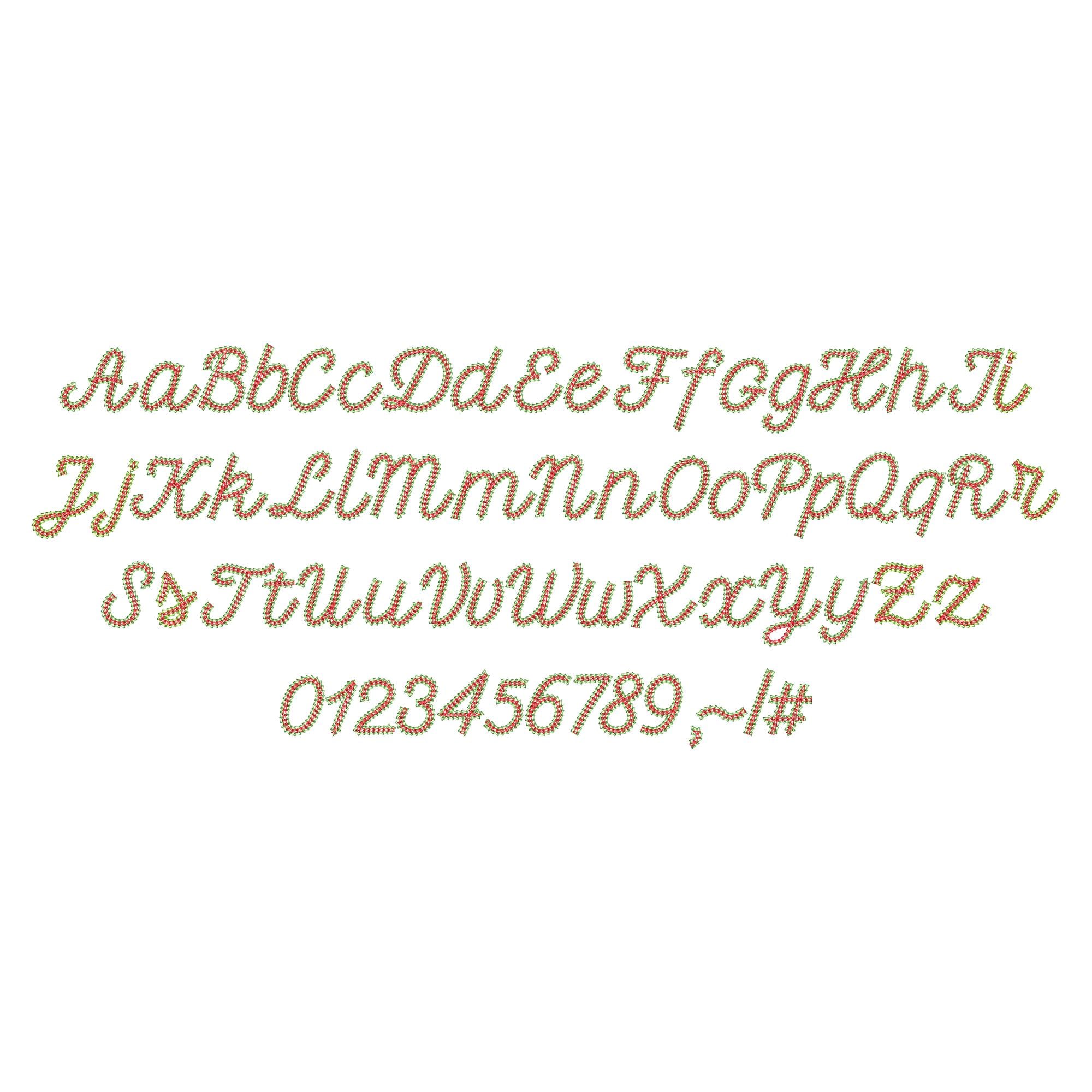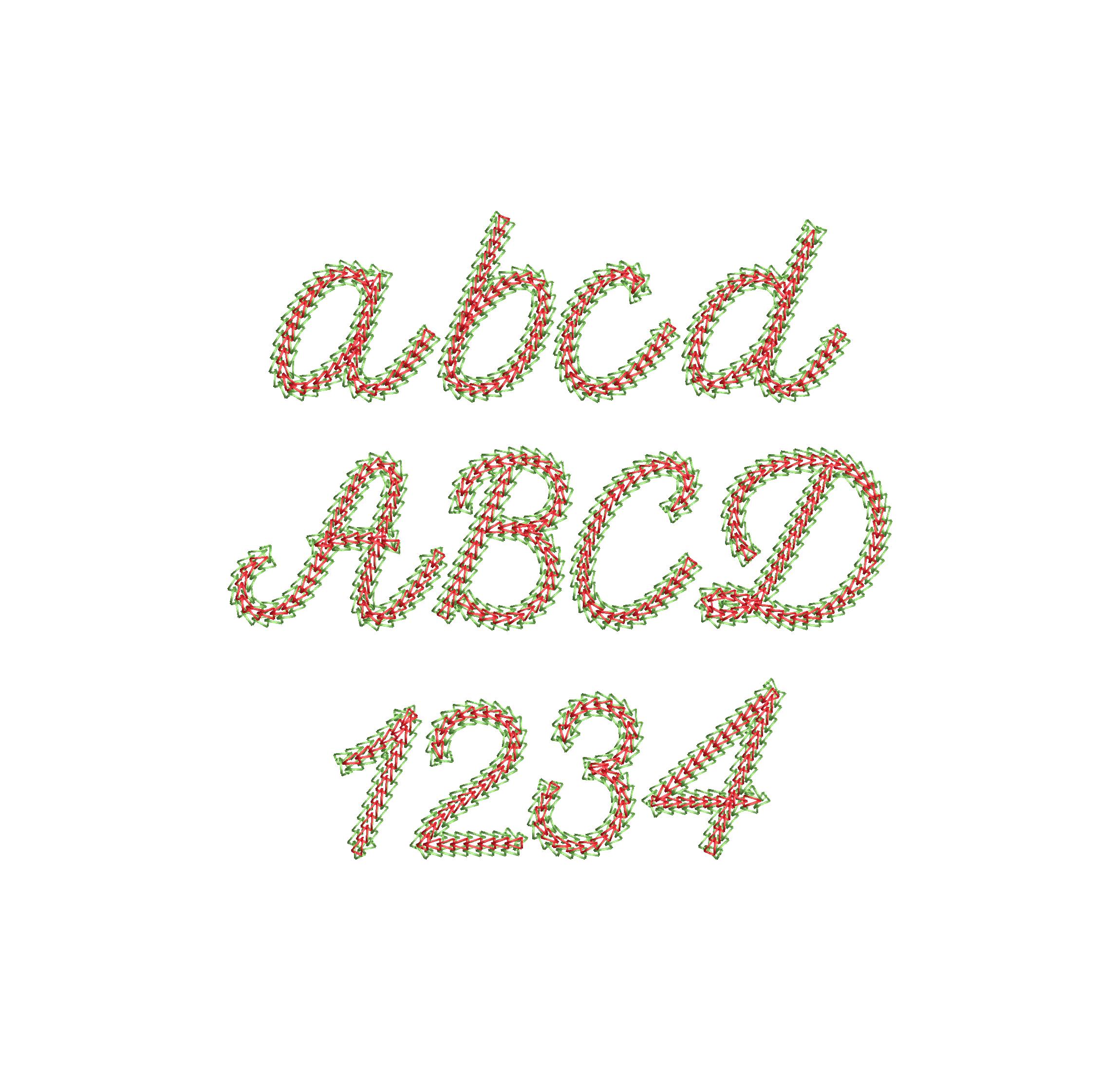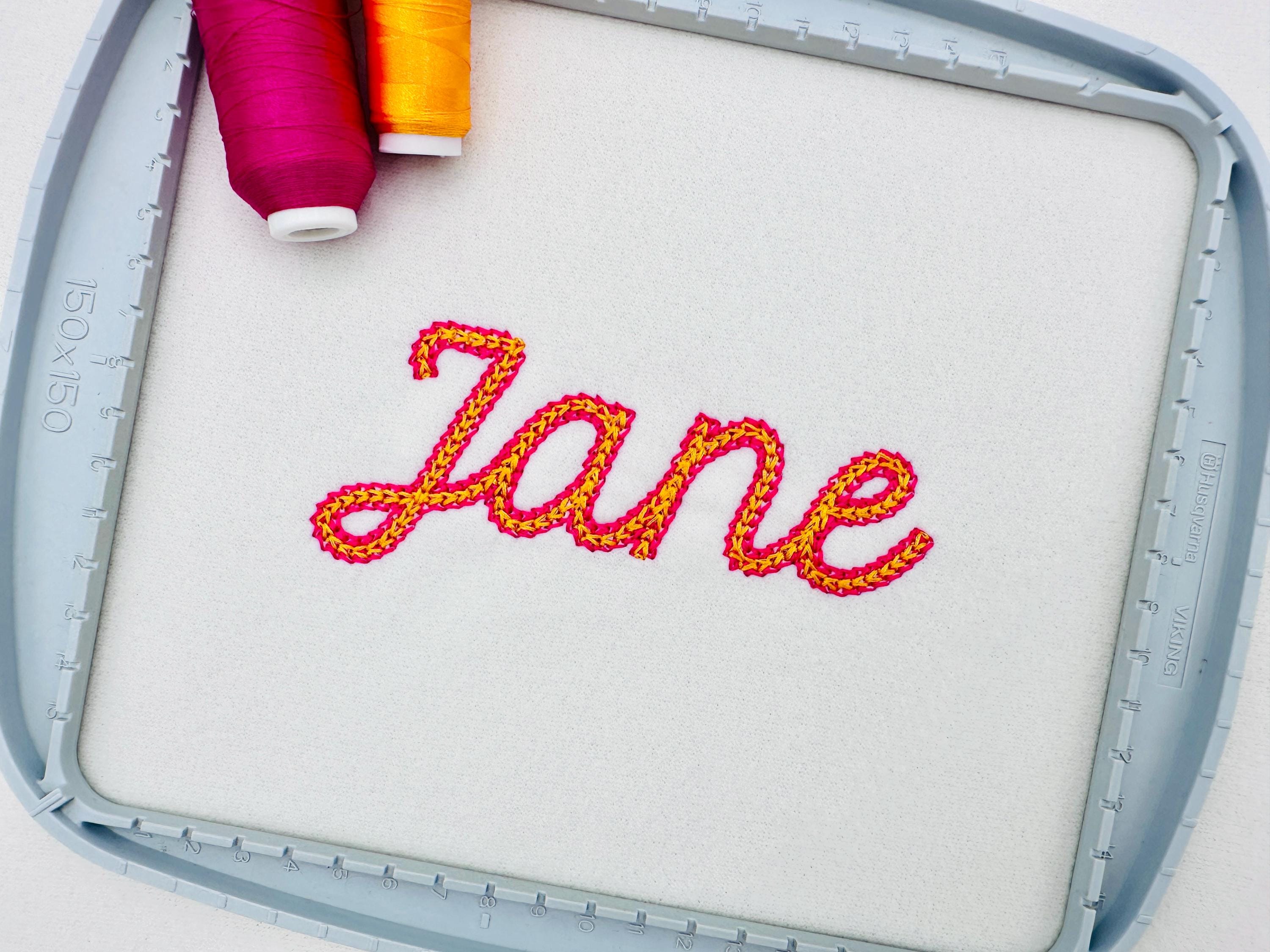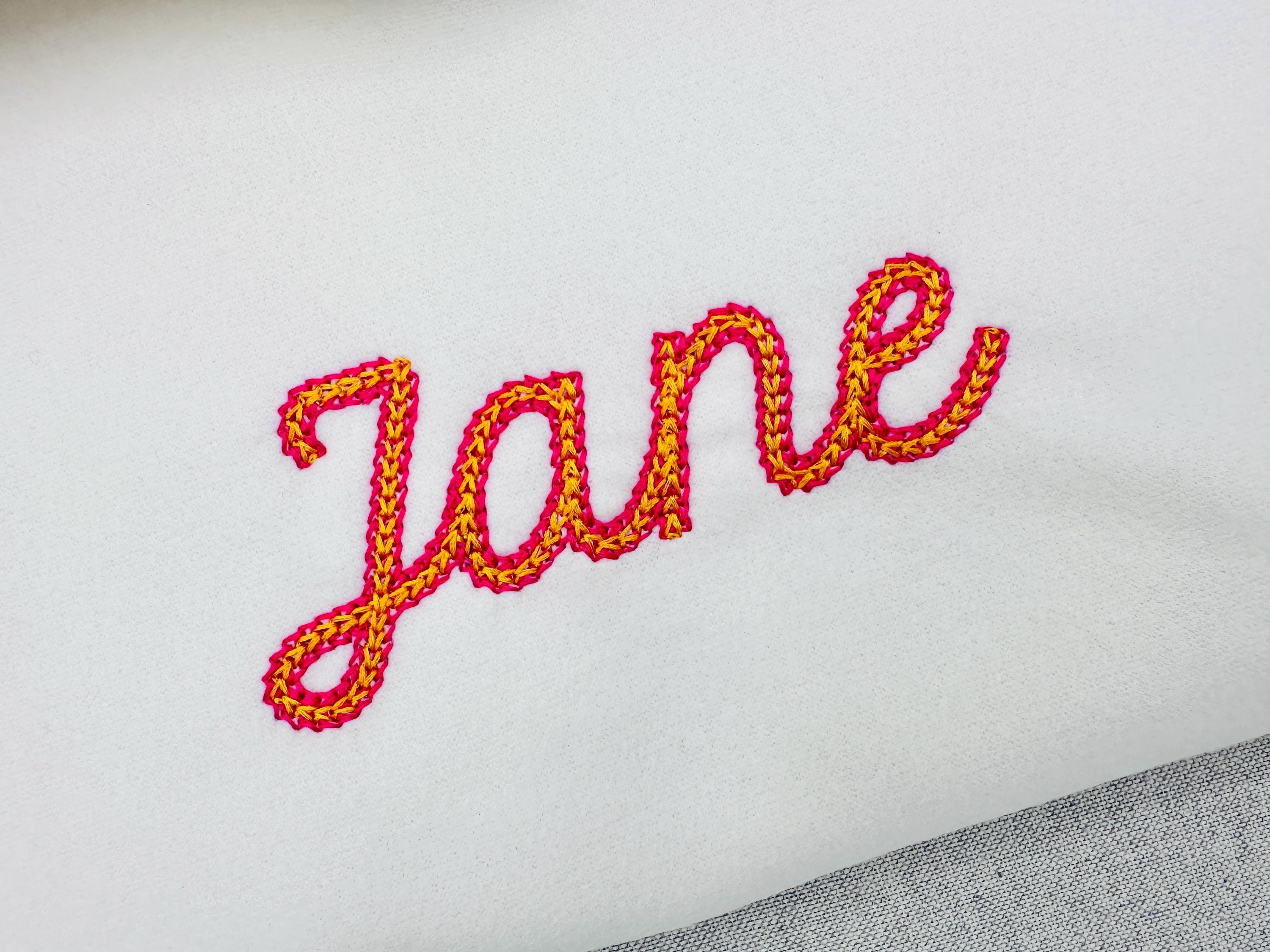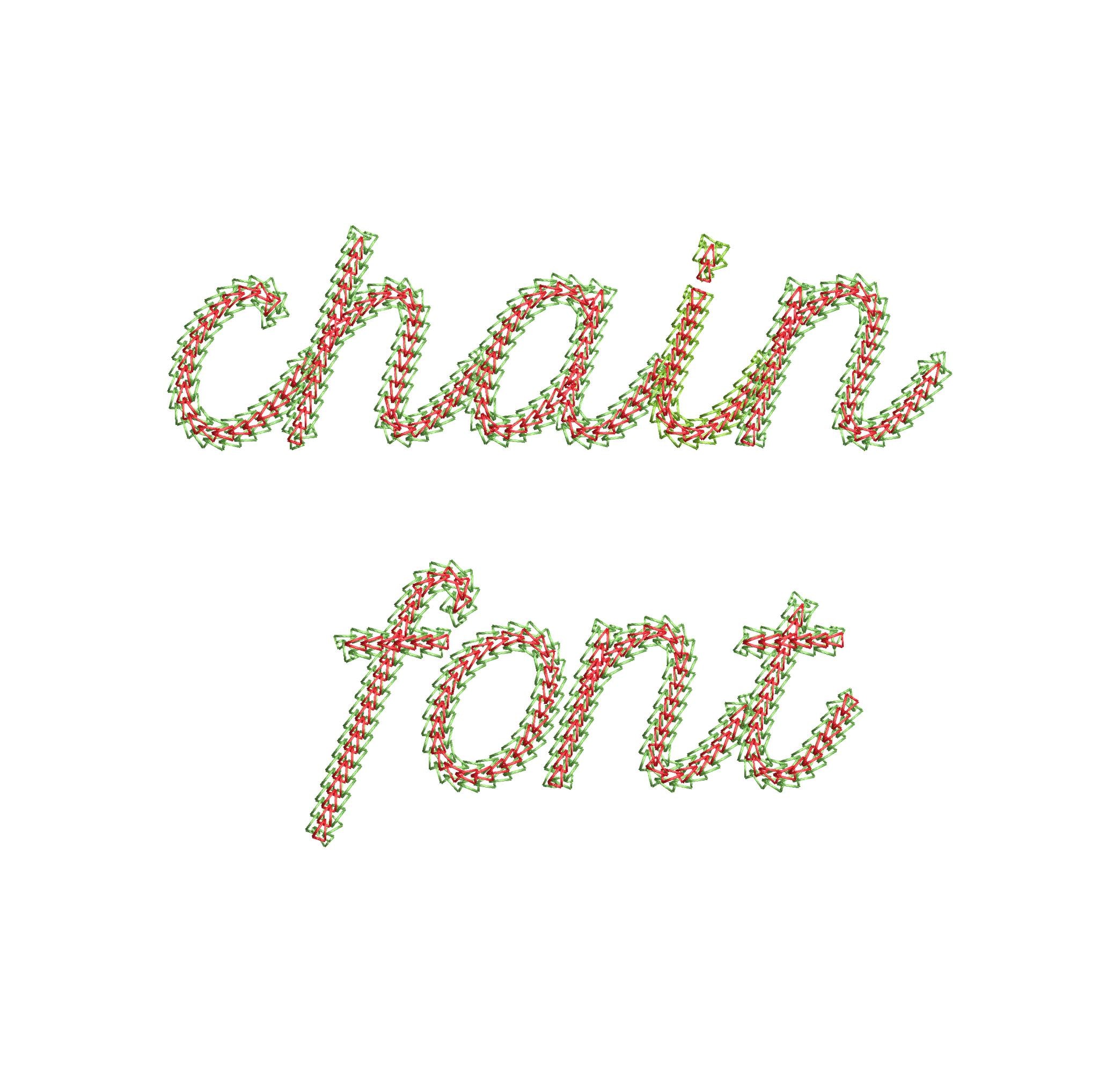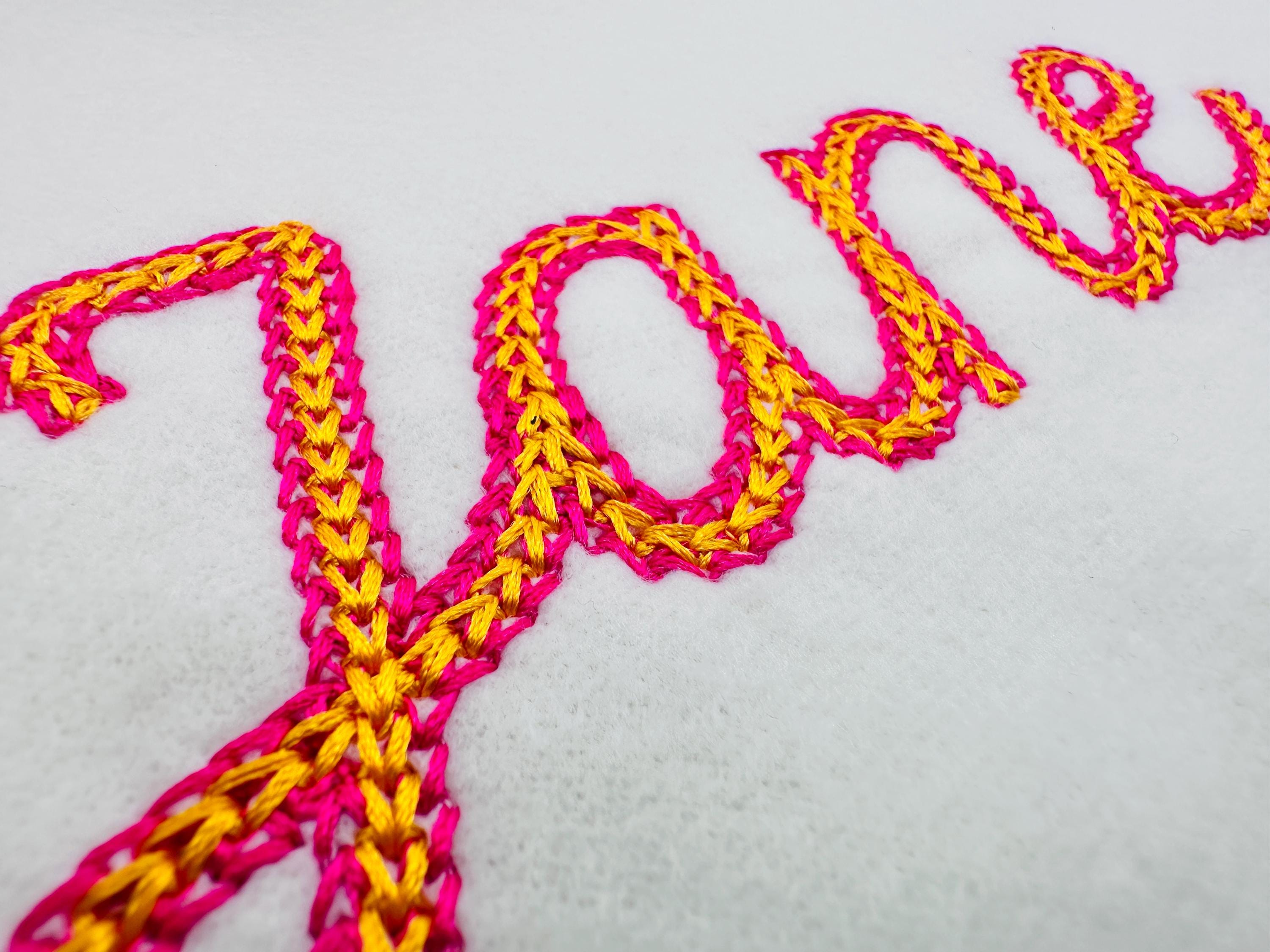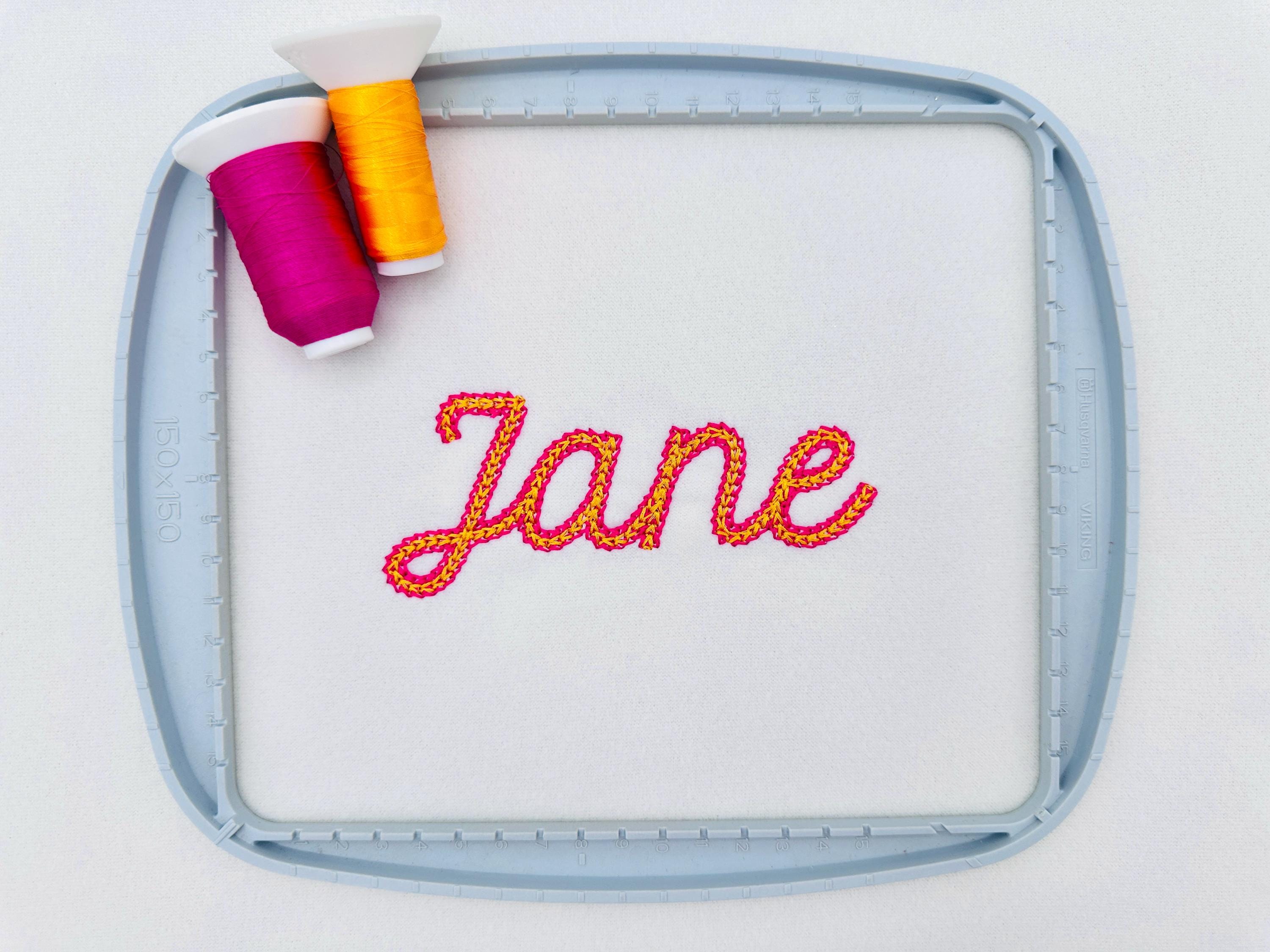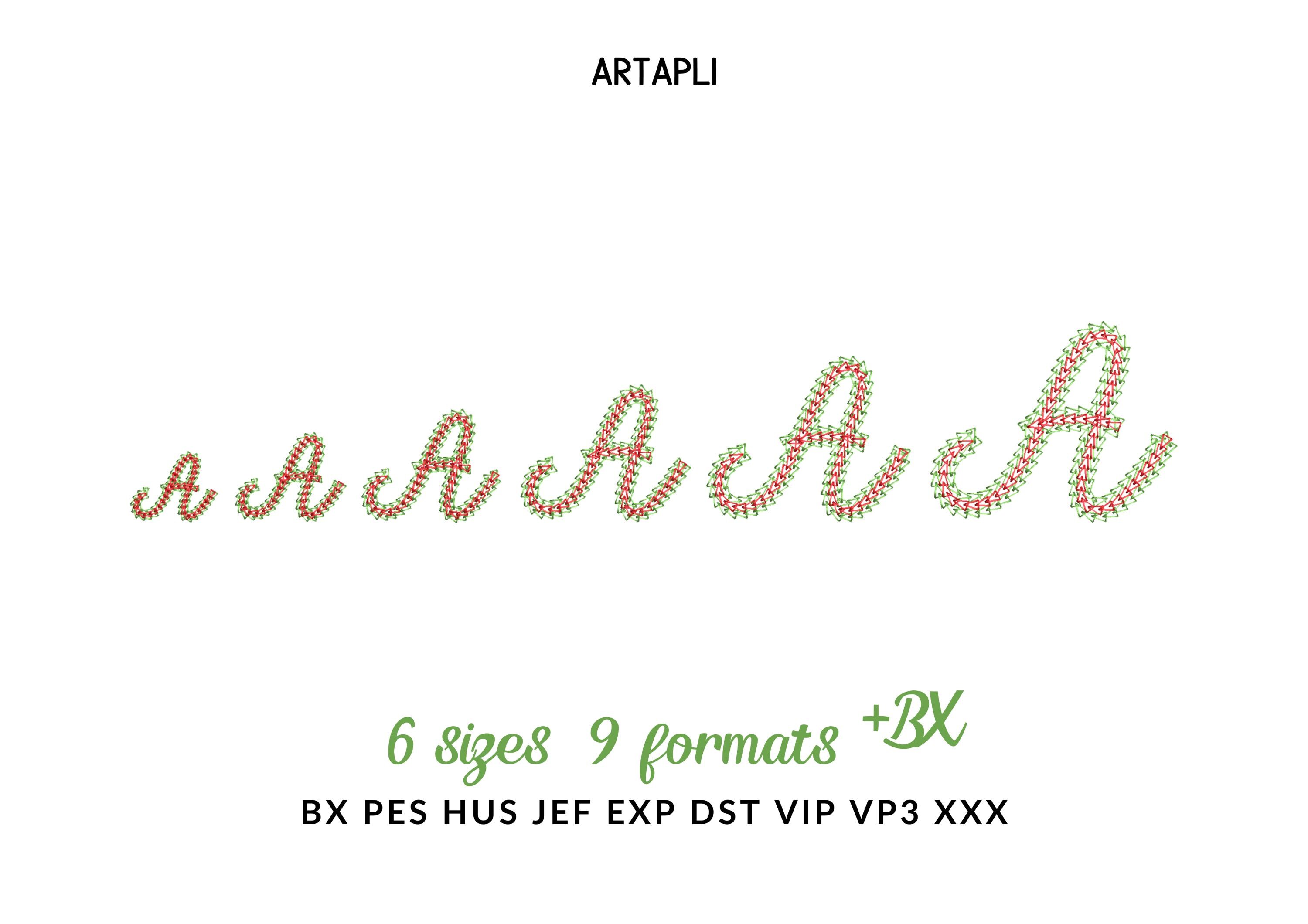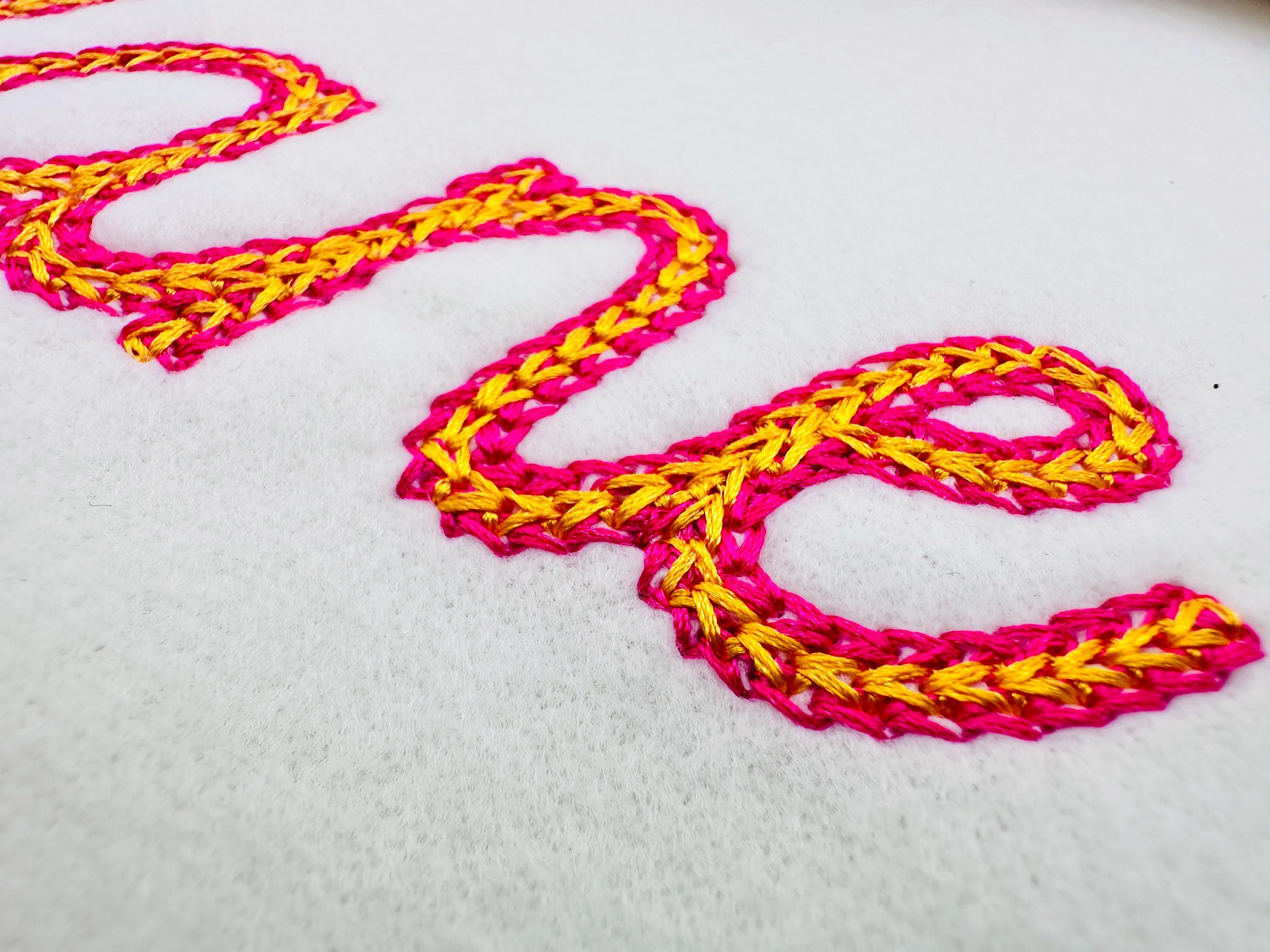
2 Color Chain Stitch FONT Chain Grace Alphabet Monogram machine embroidery designs handwritten script letters mini sizes 1 to 3 inches and BX included
Whole alphabet Aa-Zz uppercase and lowercase letters, numbers 0-9, and punctuation.